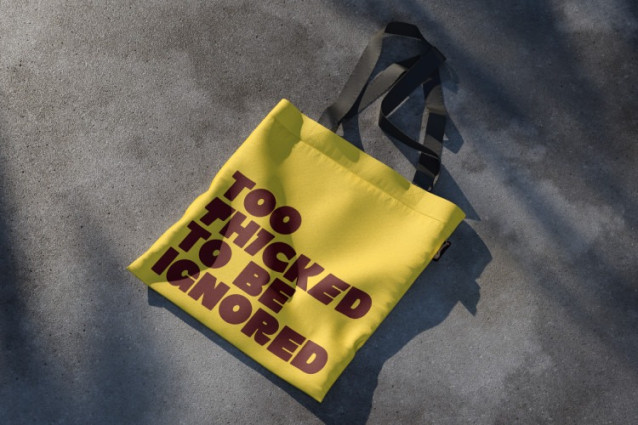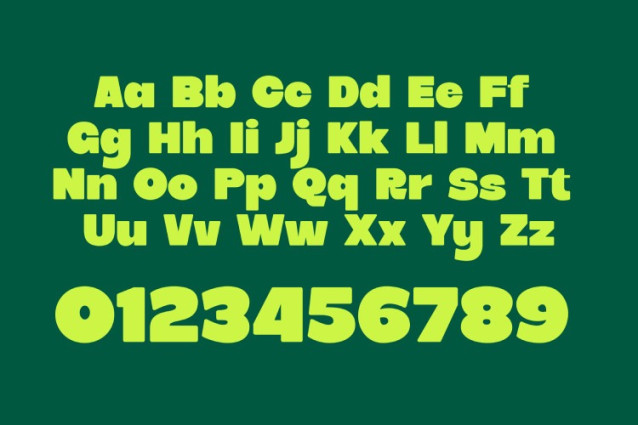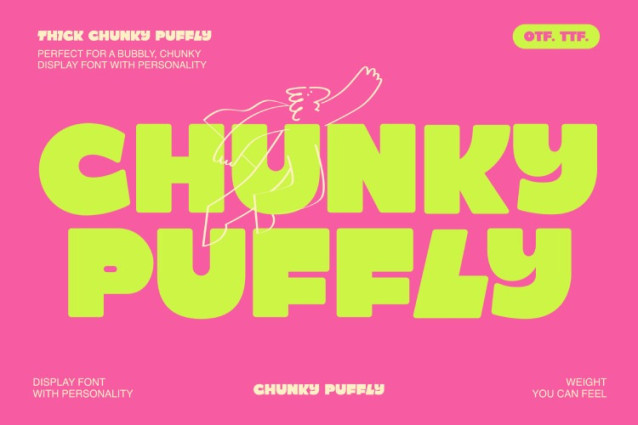
Chunky Puffly Font
Chunky Puffly Font is a bold, heavy typeface that’s all about making an impact. Chunky and blocky at its core, it owns that confident, in-your-face style without trying too hard. The shapes are solid and grounded, but there’s still a sense of flow that keeps it from feeling stiff. is modern, edgy, and full of attitude—a font made to stand loud on posters, headlines, and any project that wants to look unapologetically bold.